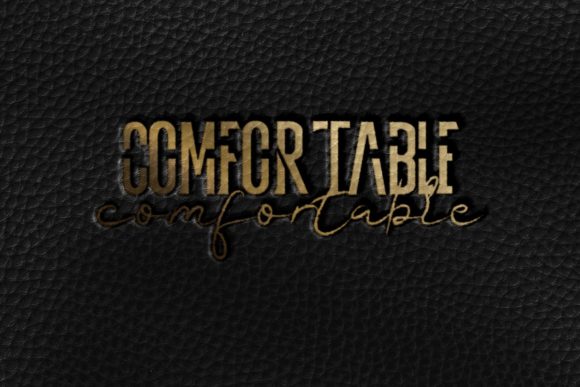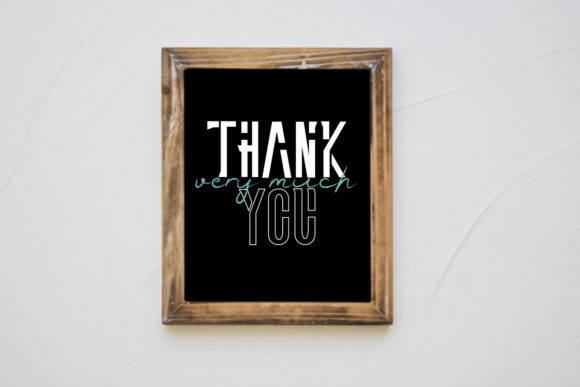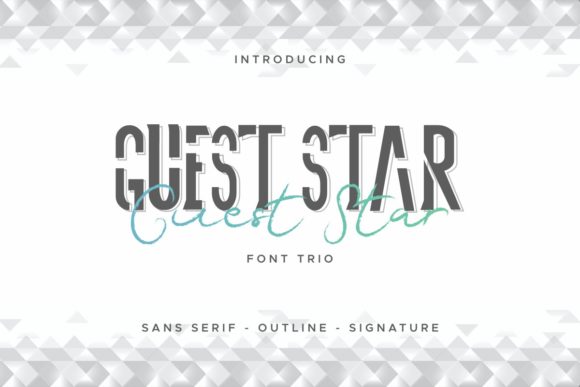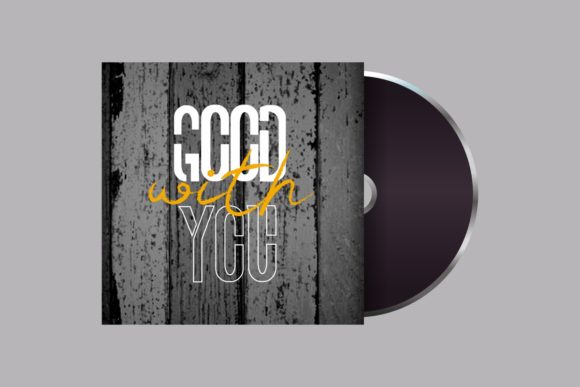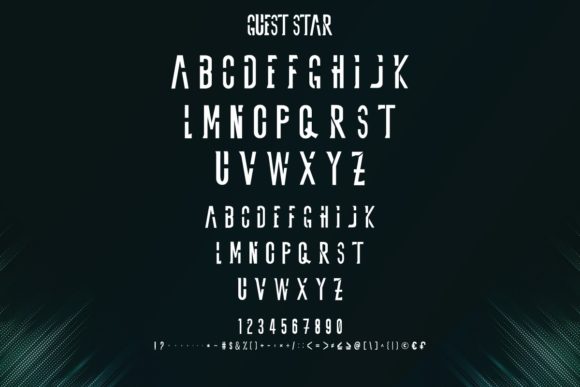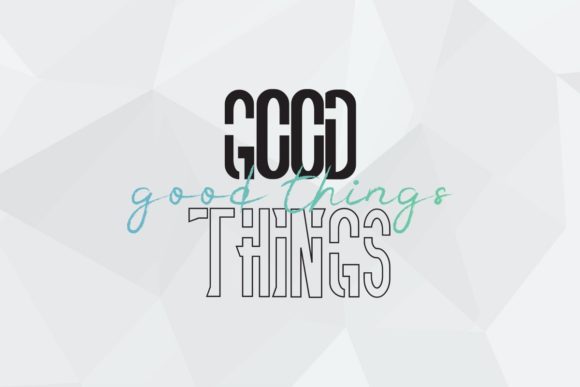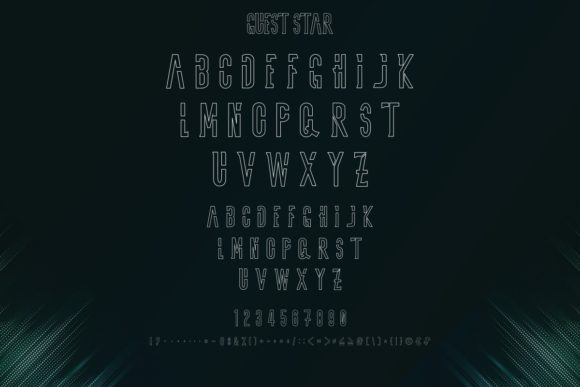
Guest Star Font
About Guest Star Font
Guest Star is a spectacular duo font (serif and script). Incredibly versatile, this font fits a wide pool of designs, elevating them to the highest levels. Add this font to your favorite creative ideas and notice how it makes them come alive!